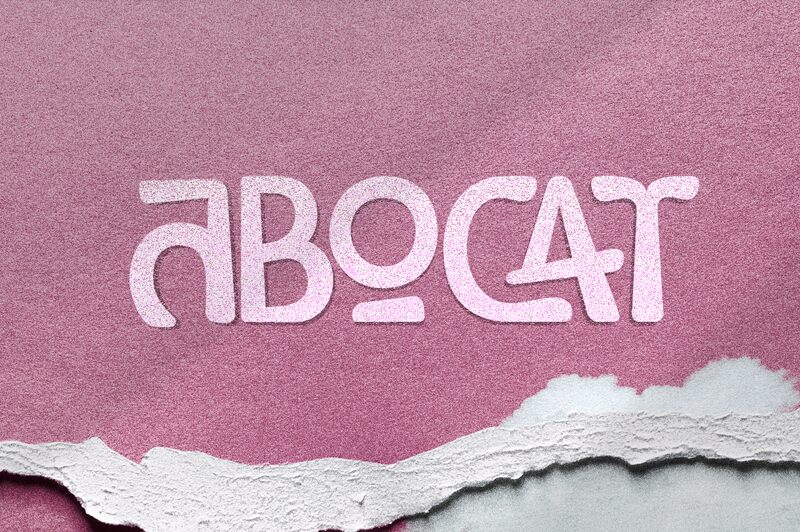
Abocat font by Grontype is a free font with a quirky design. This artistic font looks retro-inspired and geometric but features a more modern twist, thus making it attractive at first sight. Various distinctive aspects shape its unique flair for an appearance that’s eye-catching and cohesive. The typeface turns casual and exceptional matters into an exciting creation. As a result, you can secure unconventional results that can hardly ever be ignored.
The Abocat typeface can help foster an engaging and memorable brand image when used in advertising and communication. Use it in fancy and modern casual projects like book covers, branding, packaging, posters, visual identity, and logotypes.
Try it on business cards, web platforms, magazine covers, headlines, product descriptions, photography, etc.